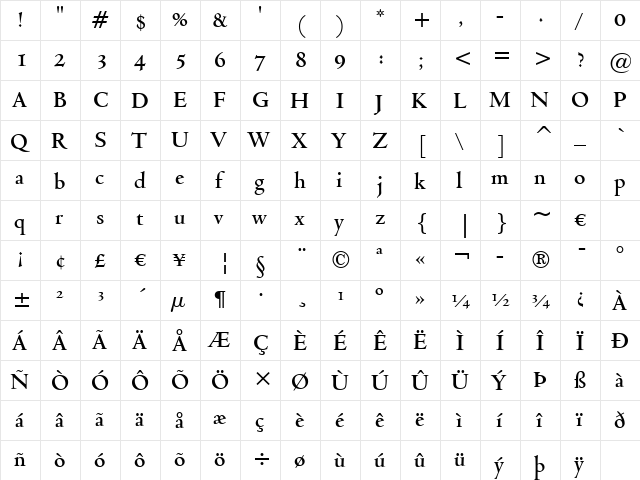
Venetian301 Bd BT Bold
Venetian301 Bd BT is a composed and adaptable typeface that performs quietly and consistently across a wide range of design contexts. Its bold stroke weight gives it real presence on the page.